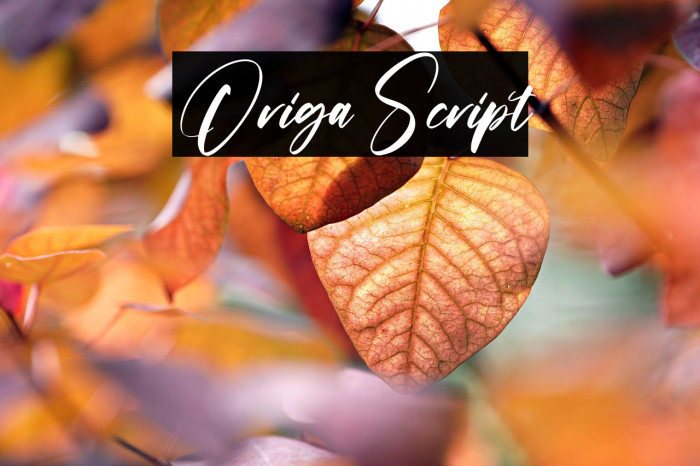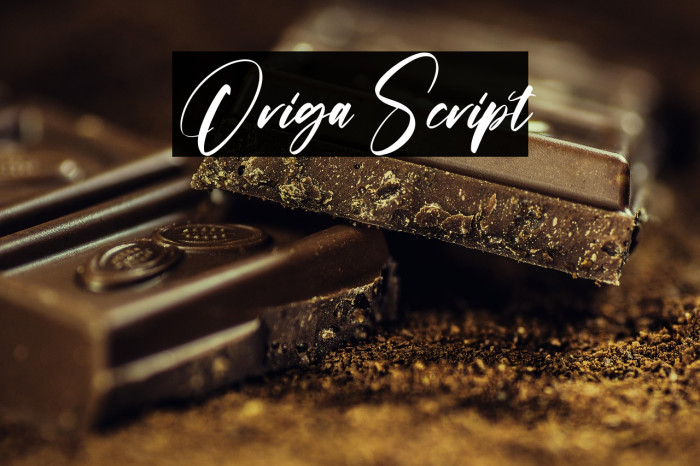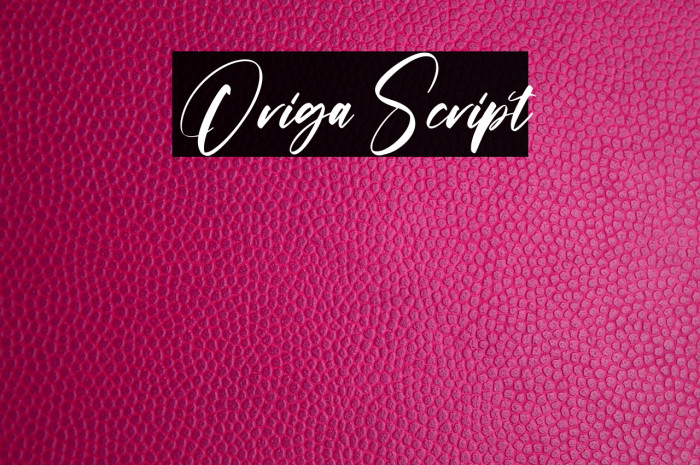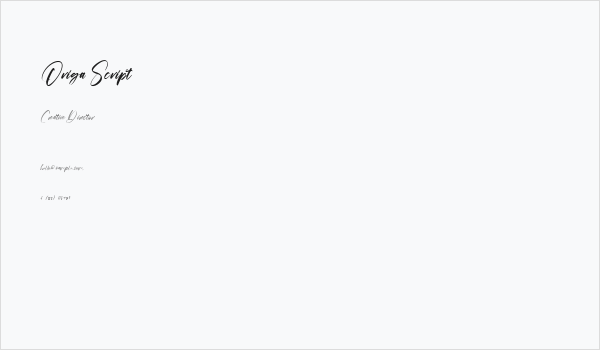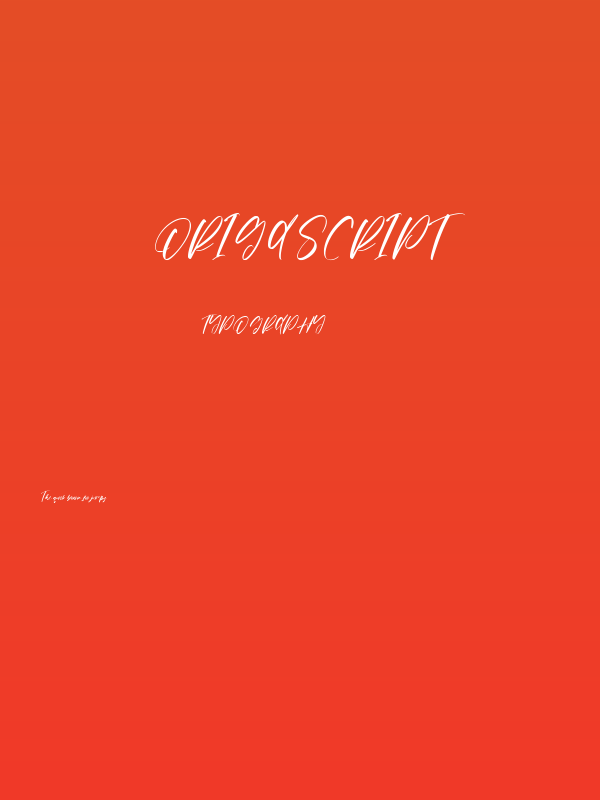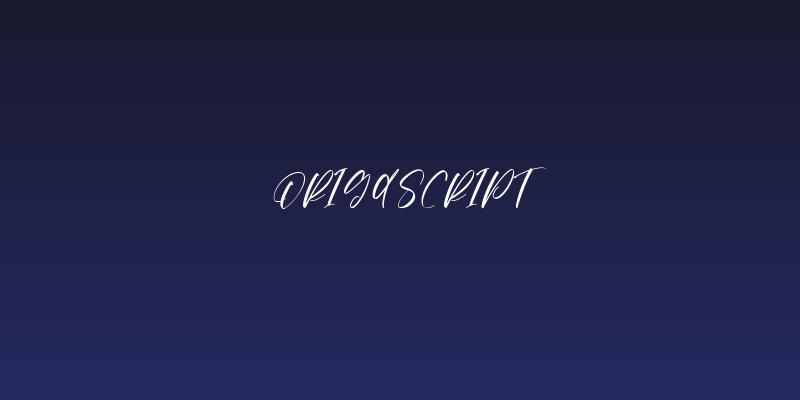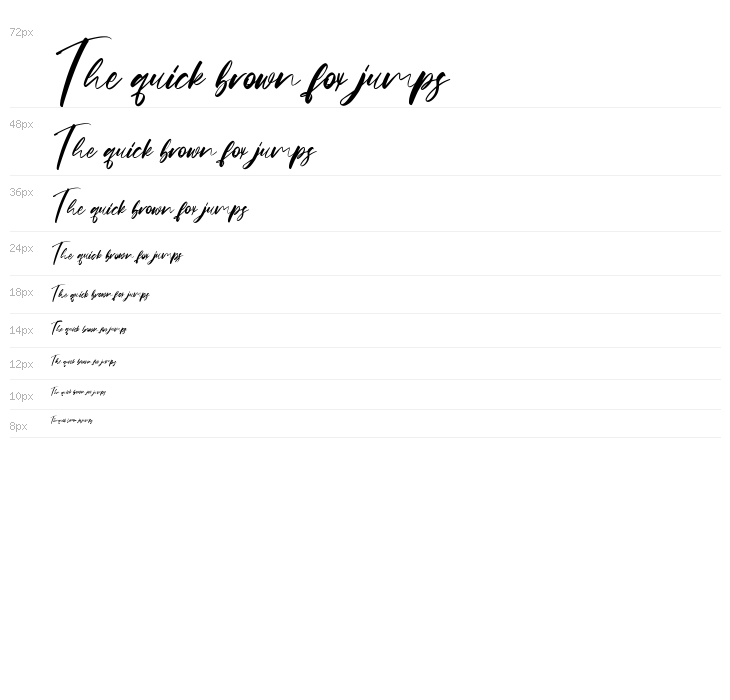
Origa Script Font
Origa Script Description
This font exhibits a flowing, elegant script style with a handwritten appearance. The characters are connected in a fluid manner, giving a sense of movement and grace. The strokes vary in thickness, providing a dynamic contrast that enhances its visual appeal. The uppercase letters are bold and prominent, while the lowercase letters maintain a consistent flow. The numbers and special characters are designed to match the overall aesthetic, ensuring cohesion across all elements. This font is ideal for projects that require a personal, artistic touch.
| Proposed Projects | Ideal for wedding invitations, greeting cards, personal branding, and artistic projects. |